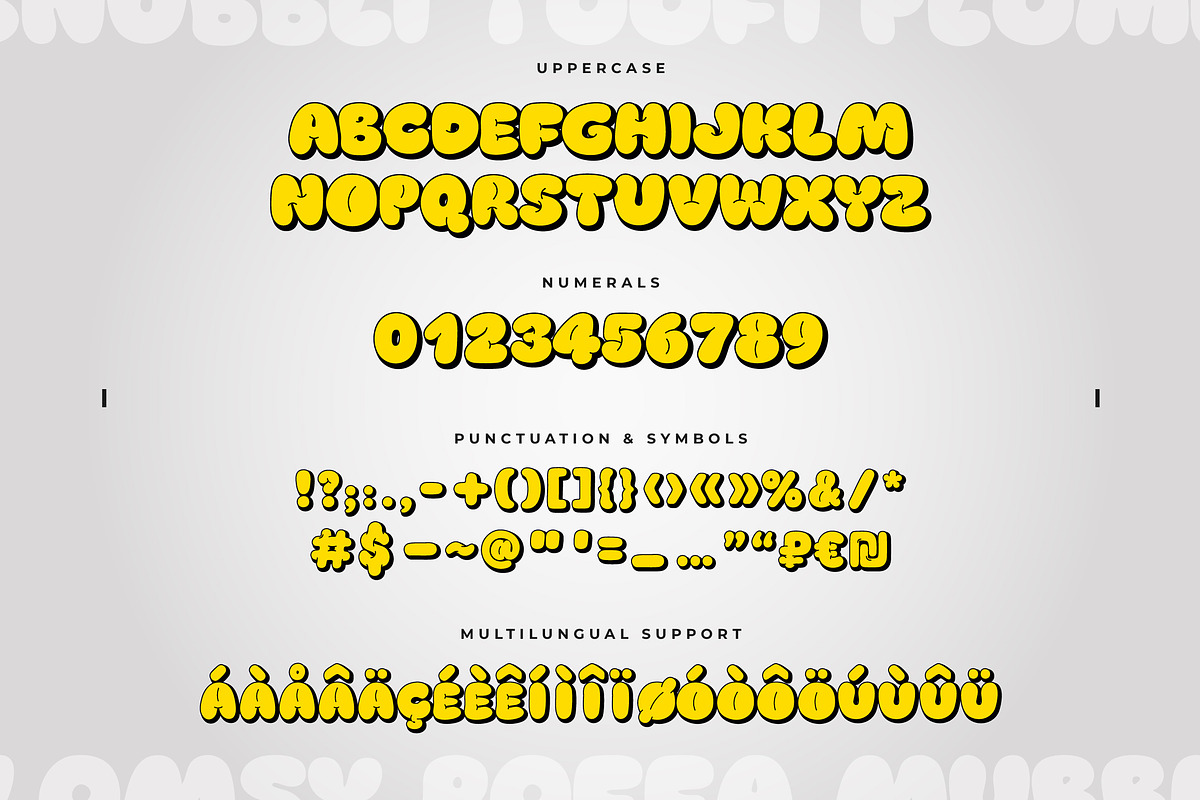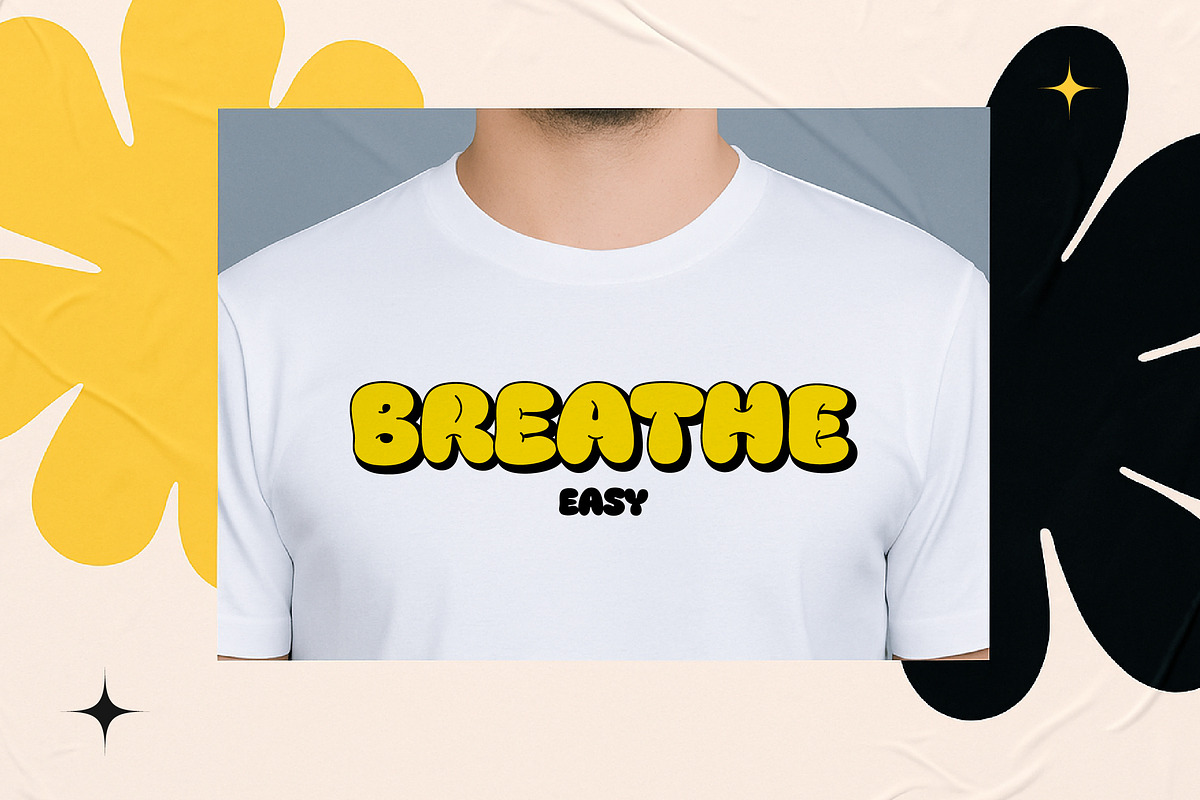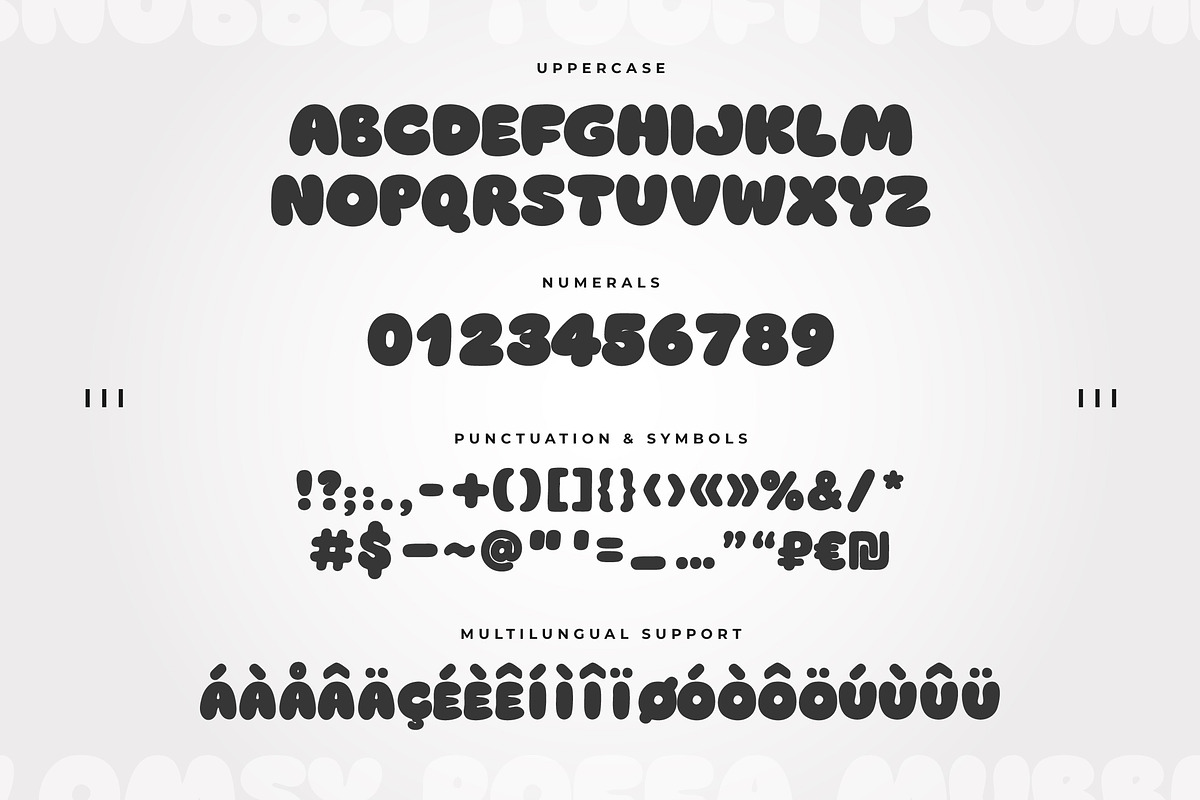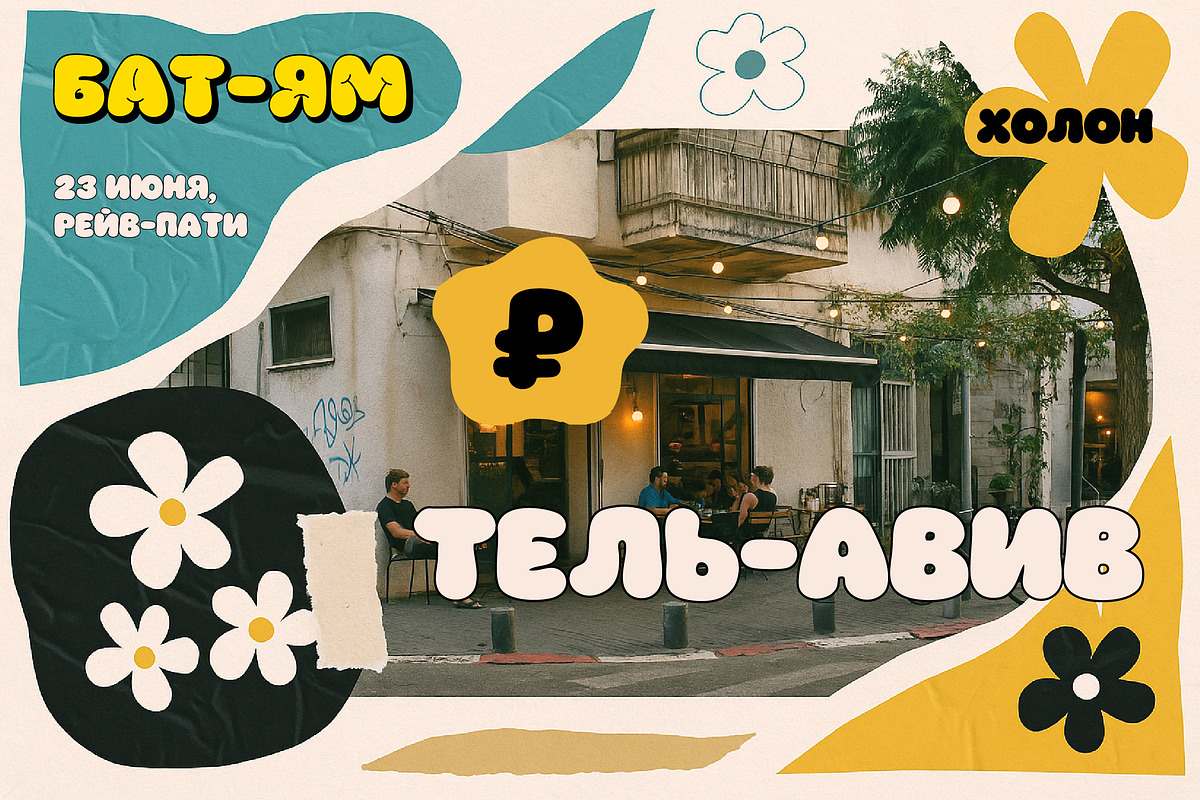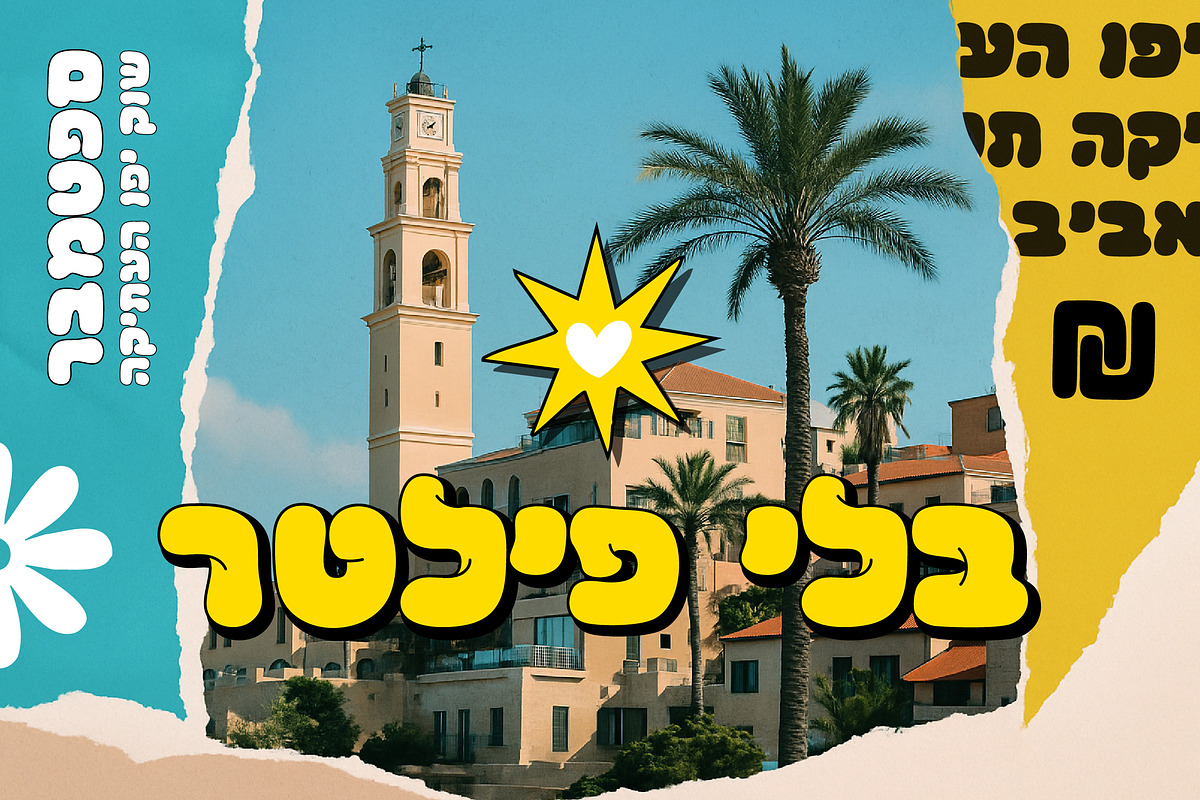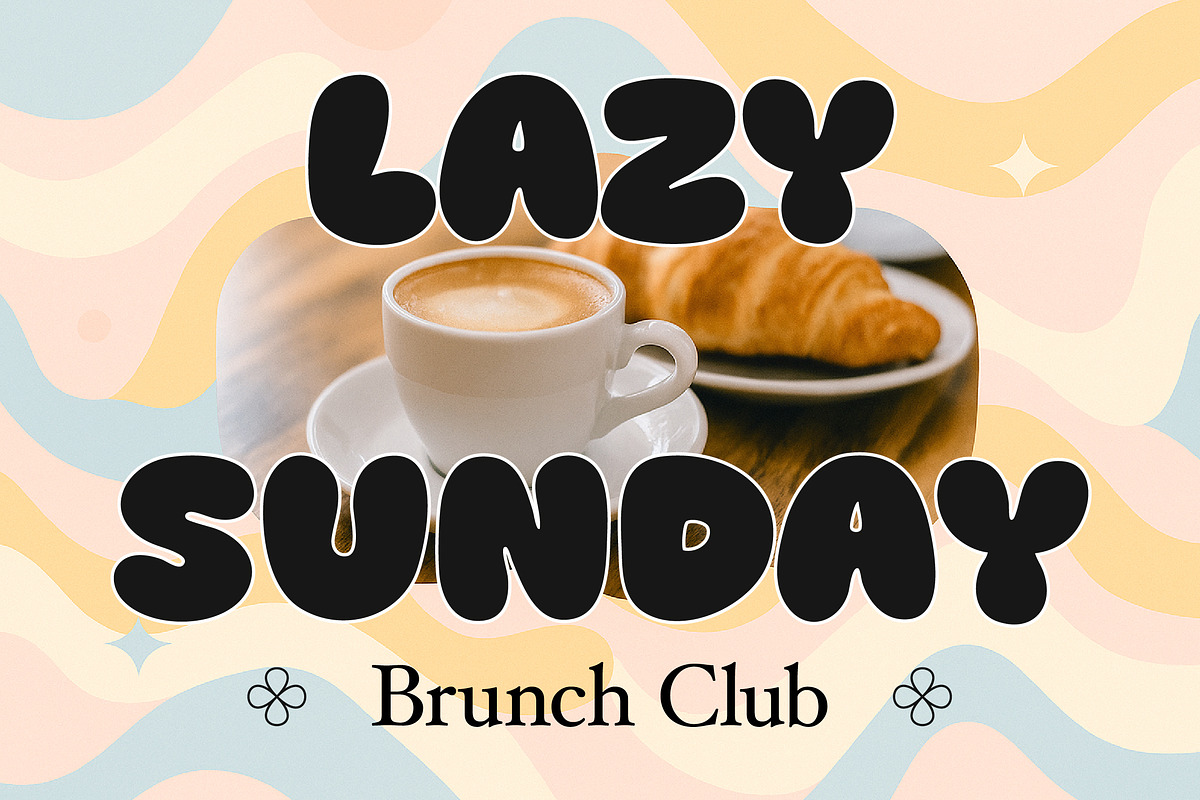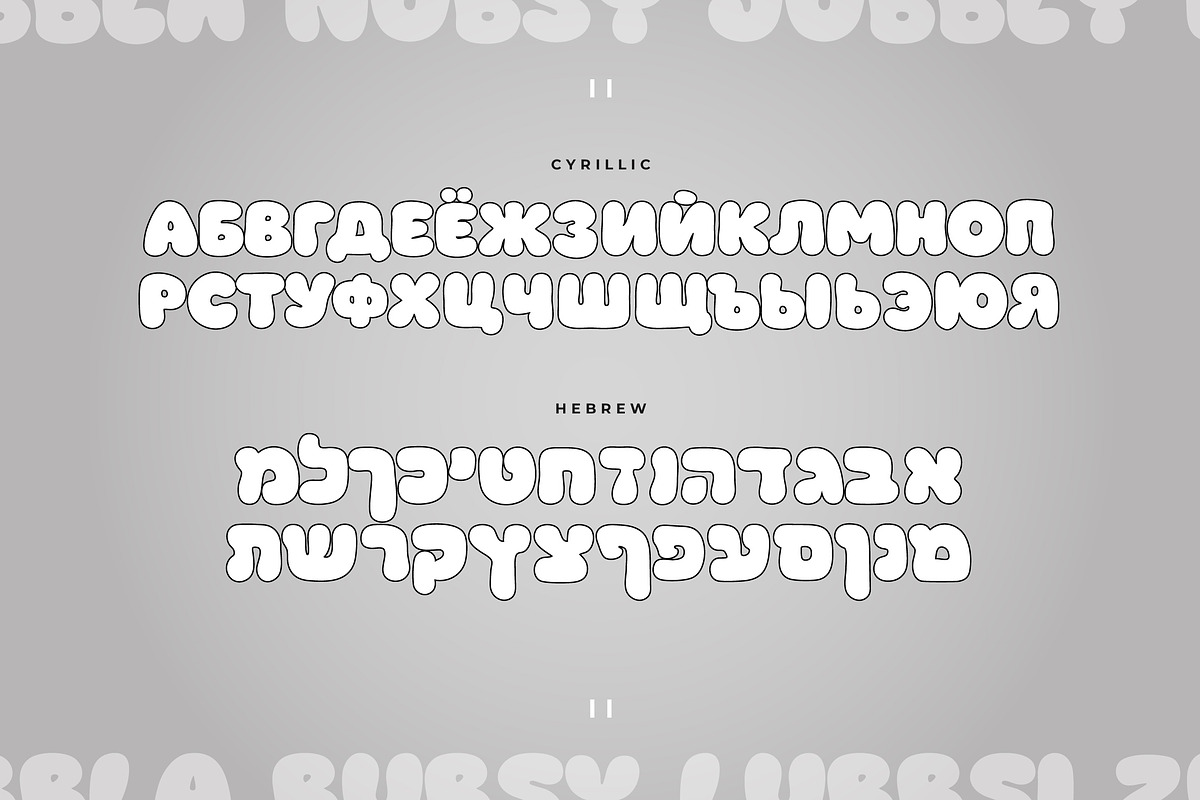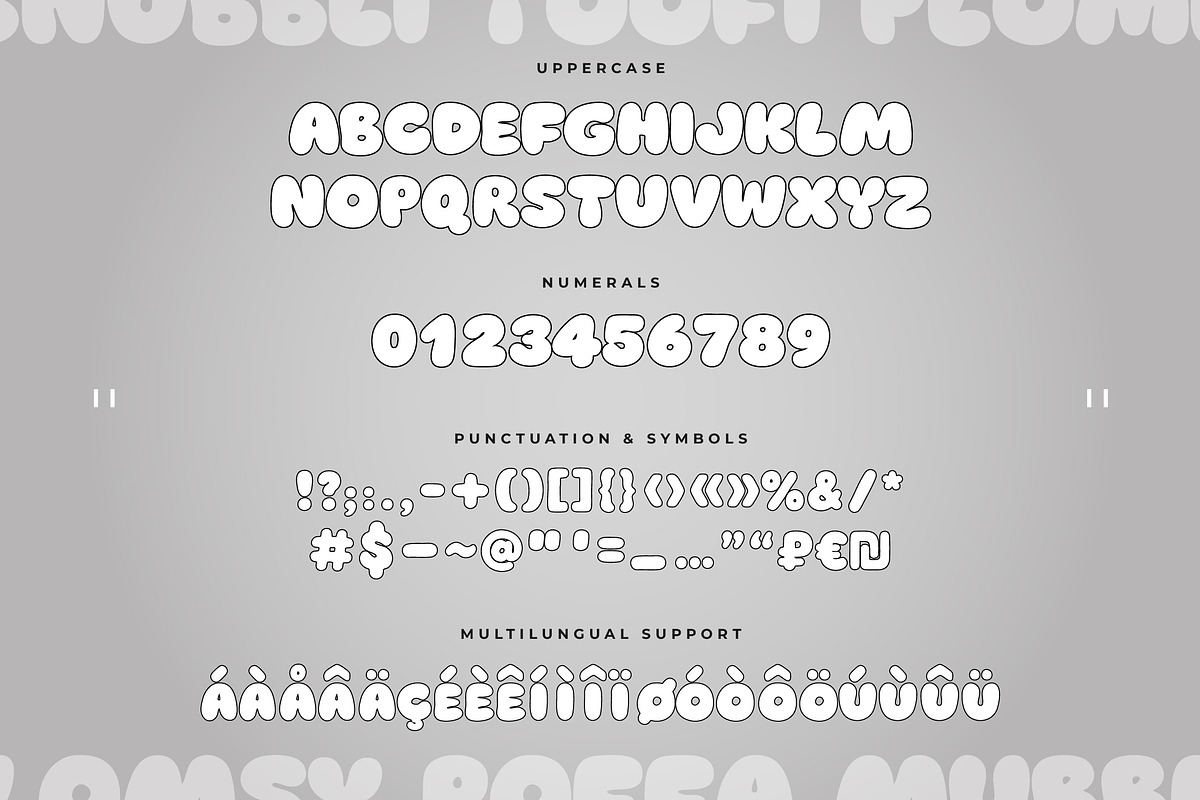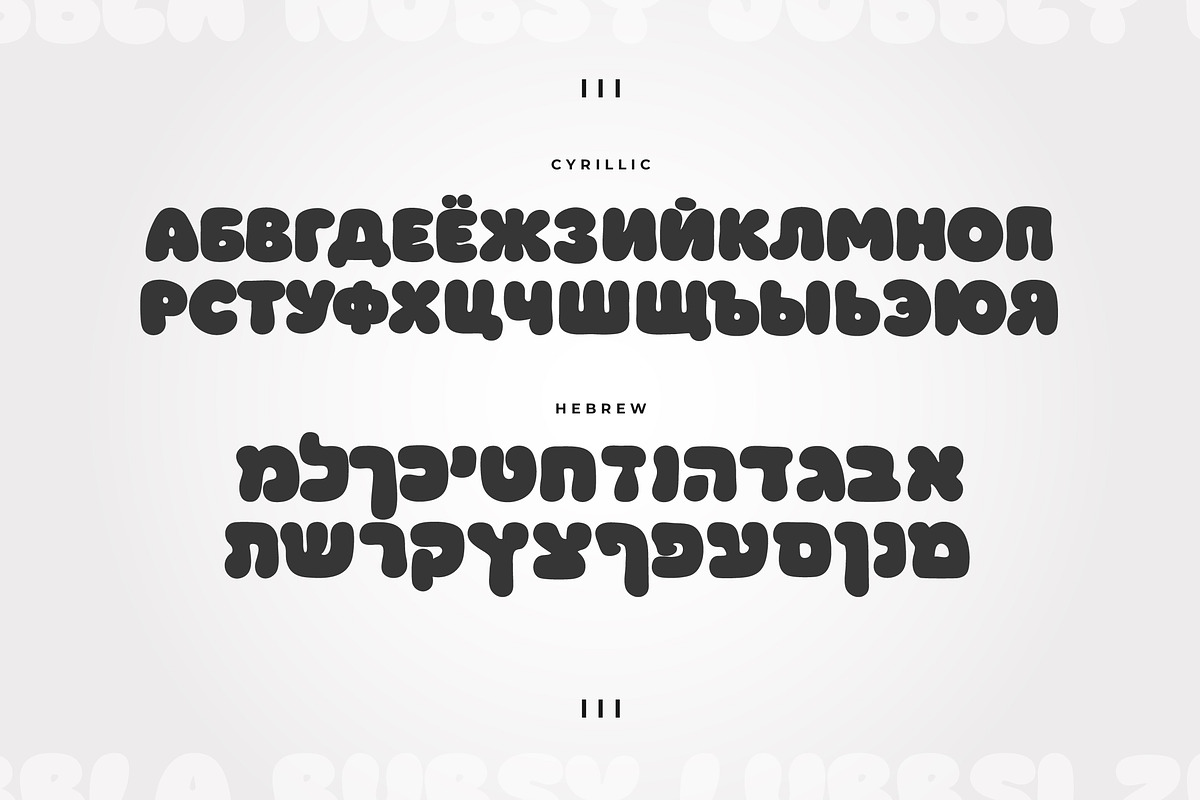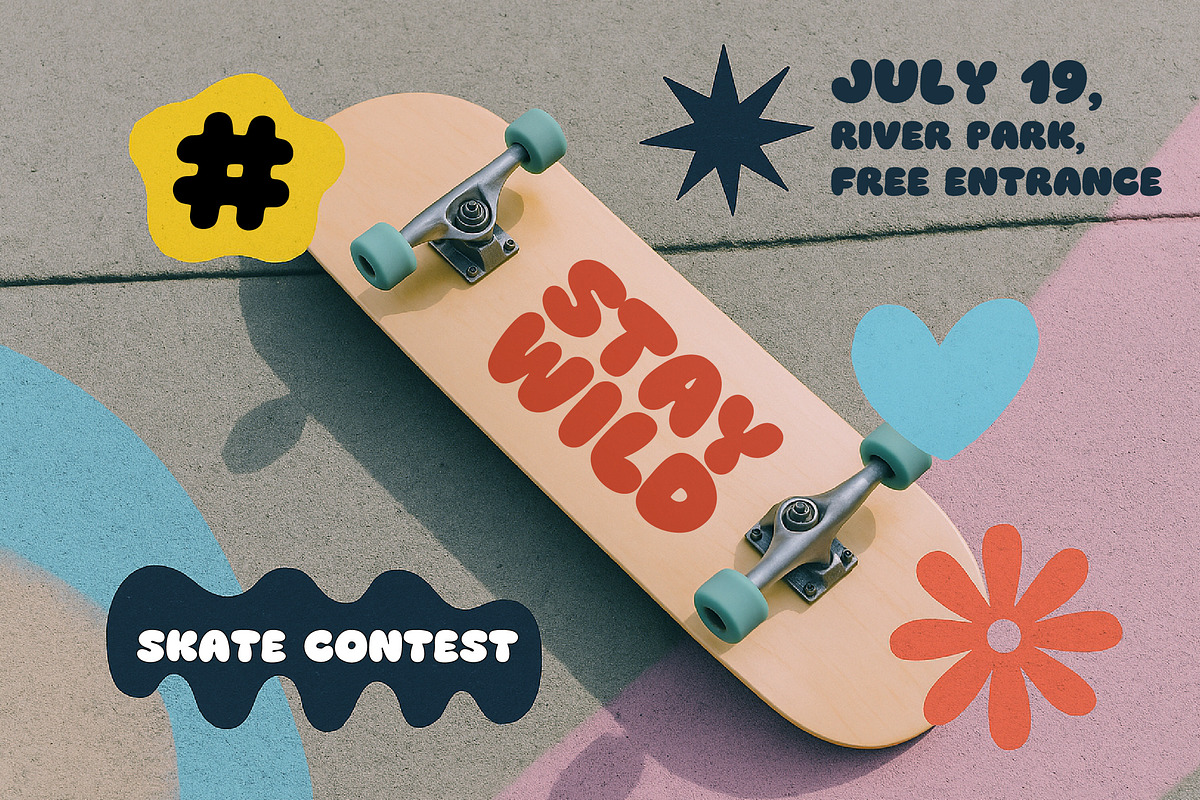
GUMBLI - 3-in-1 Bubble Multilingual
GUMBLI
Say hello to your new design bestie!
Gumbli is a bubble, plump, playful typeface that’s bursting with charm. Whether you're branding a brunch club, launching a kids' app, or just want your message to pop off the page — Gumbli brings the bounce.
What’s Inside
- Three Styles Included
- Gumbli – sunshine‑yellow fill with black outline & soft shadow
- Gumbli Marshmallow – clean hollow contours ready for gradients, textures, or neon strokes
- Gumbli Liquorice – bold single‑colour fills that work everywhere, even in apps that don’t support colour fonts
Character Set
- Latin A‑Z
- Cyrillic А‑Я
- Hebrew א‑ת
- Symbols & currency: $ € ₽ ₪ % & @ # … etc
- Kids’ branding & packaging
- Café menus and brunch flyers
- Retro 70s / Y2K layouts
- Comic & gaming titles
- YouTube thumbnails & Twitch overlays
- Stickers, pins, patches, embroidery